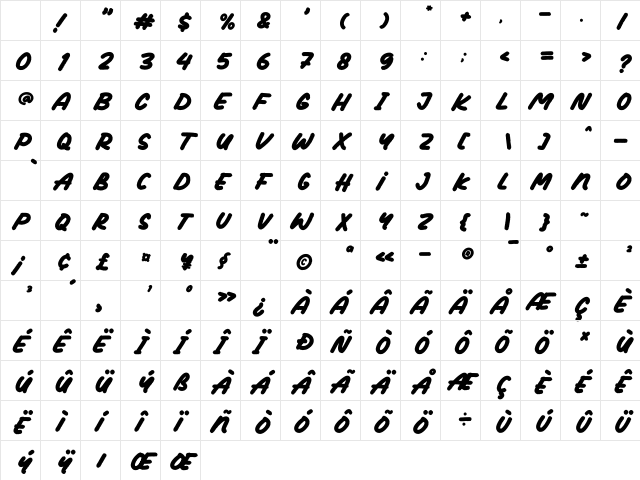
Complete NCL Amore Benkova Demo Regular glyph index. Displaying only characters natively supported by NCL Amore Benkova Demo Regular font.
NCL Amore Benkova Demo is a composed and adaptable typeface that performs quietly and consistently across a wide range of design contexts.